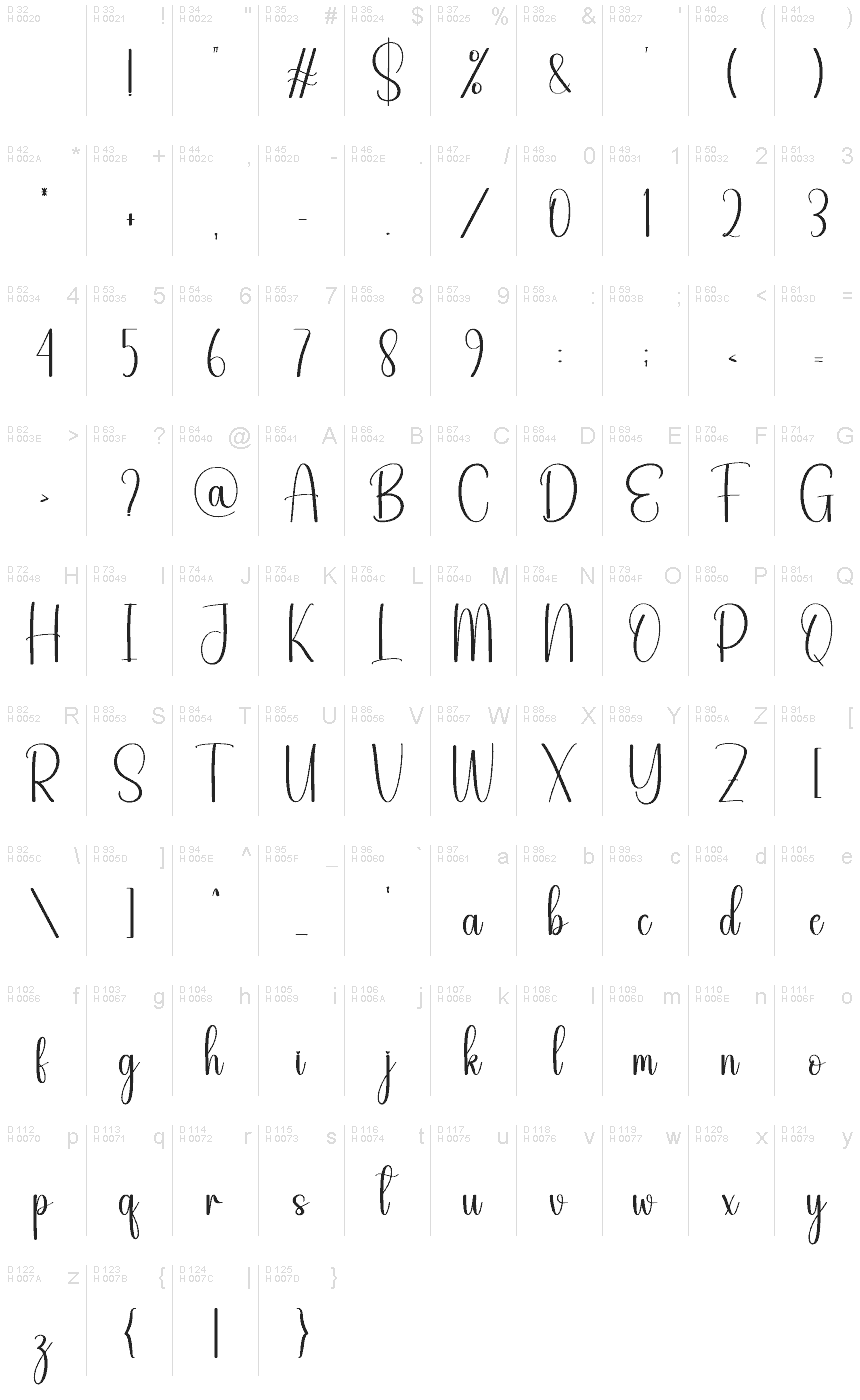
Gasstove
Gasstove font is an elegant and smooth calligraphy creation by Andi Moz, characterized by a flowing modern script with artistic flair. Designed with casual elegance emphasized in its construction, this writing communicates vocality through the perfect combination of varied thick and thin lines.